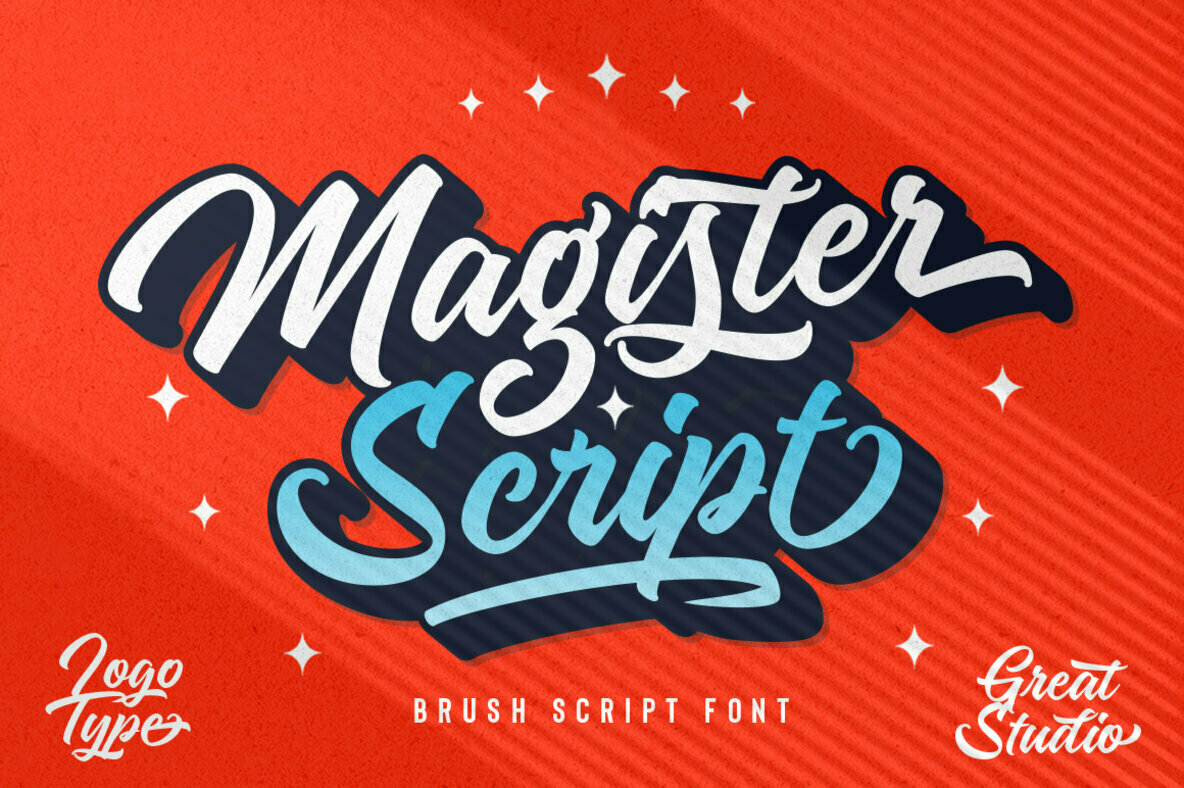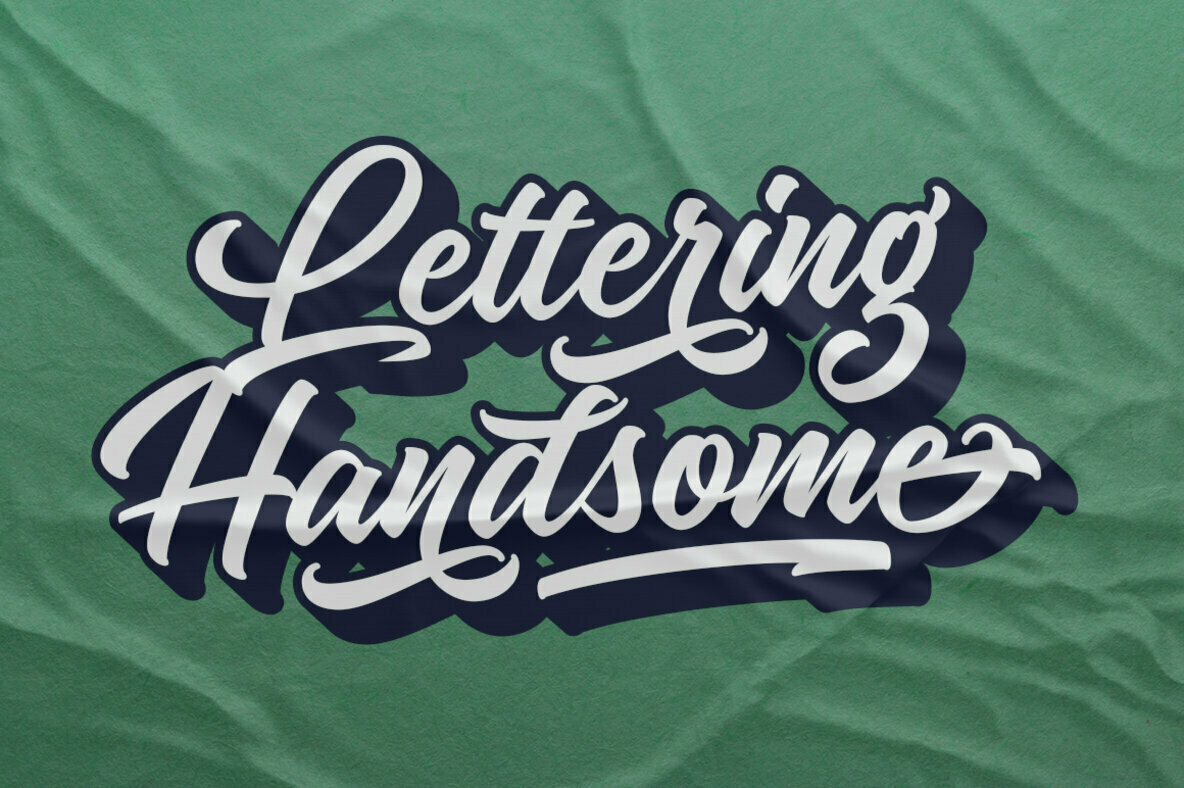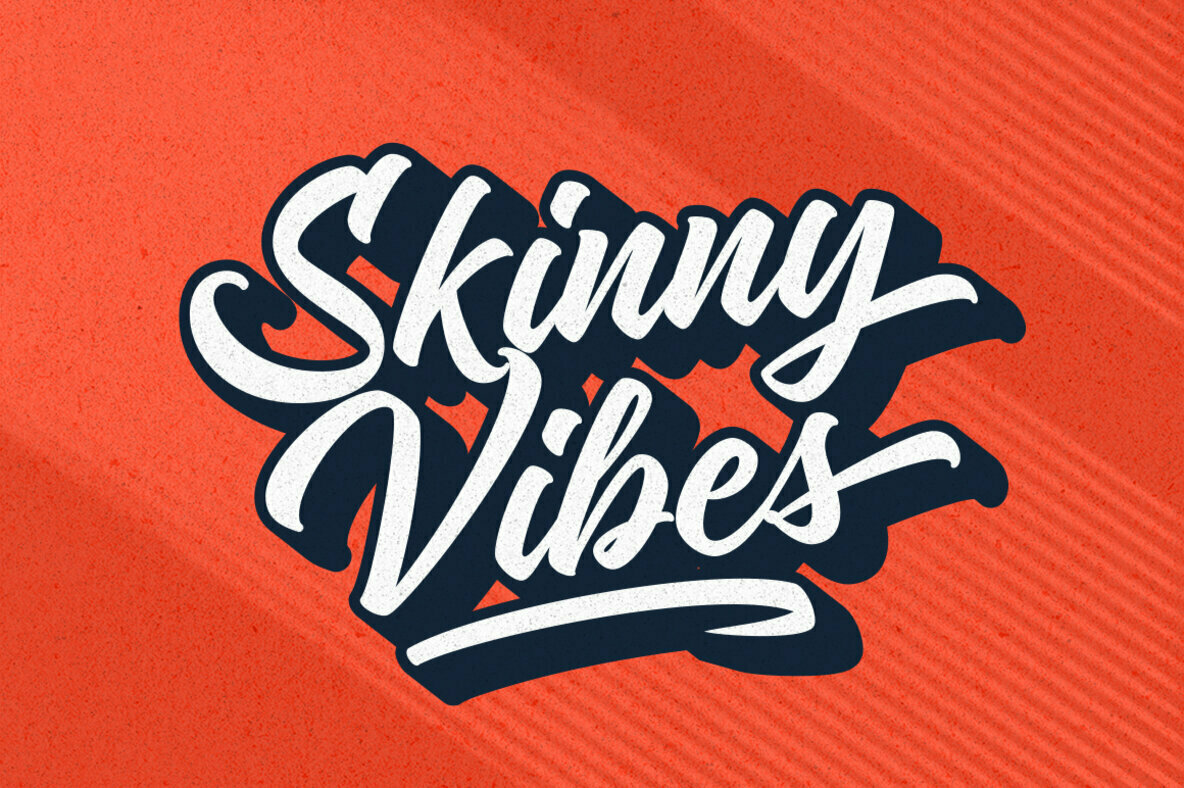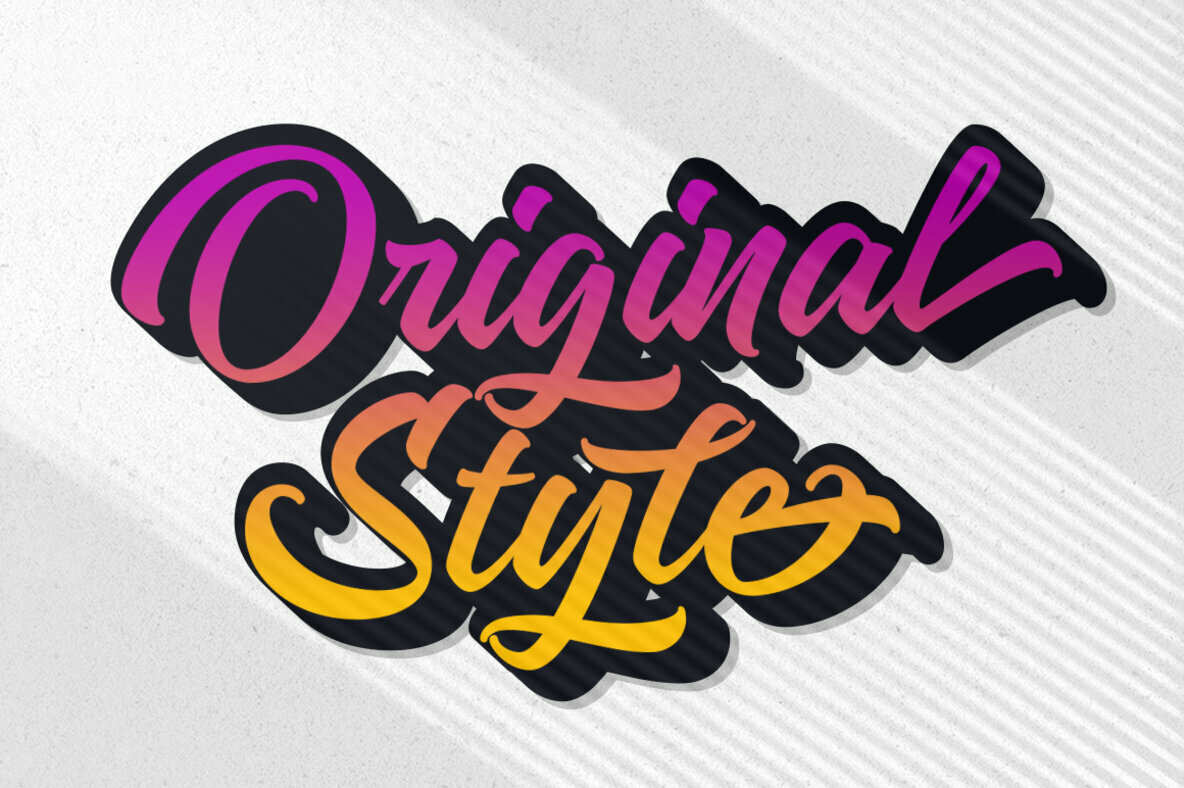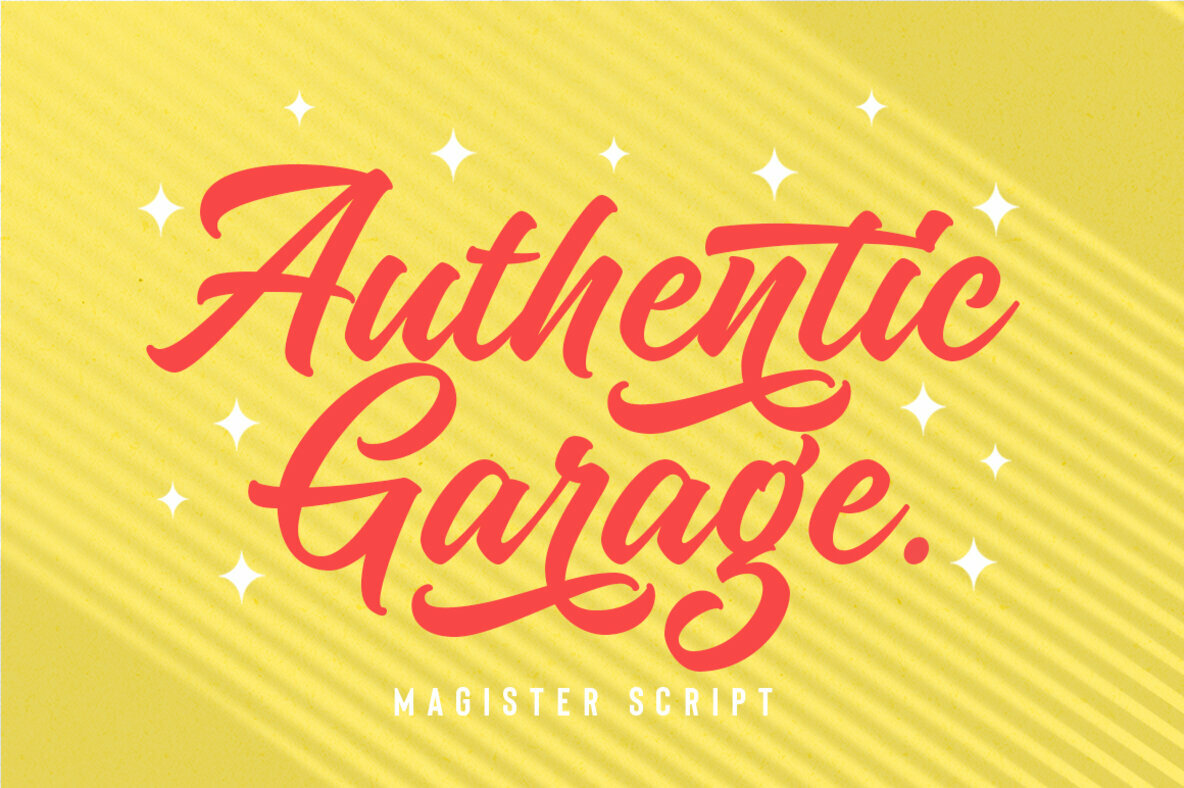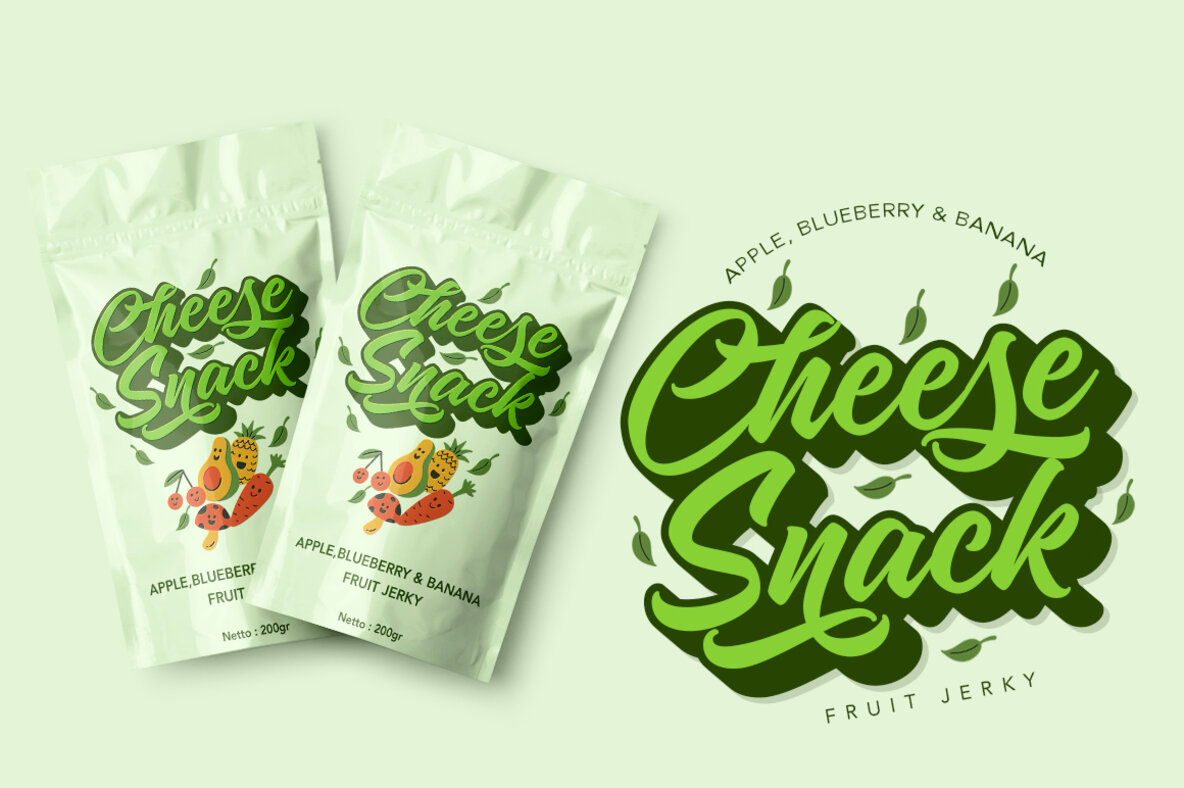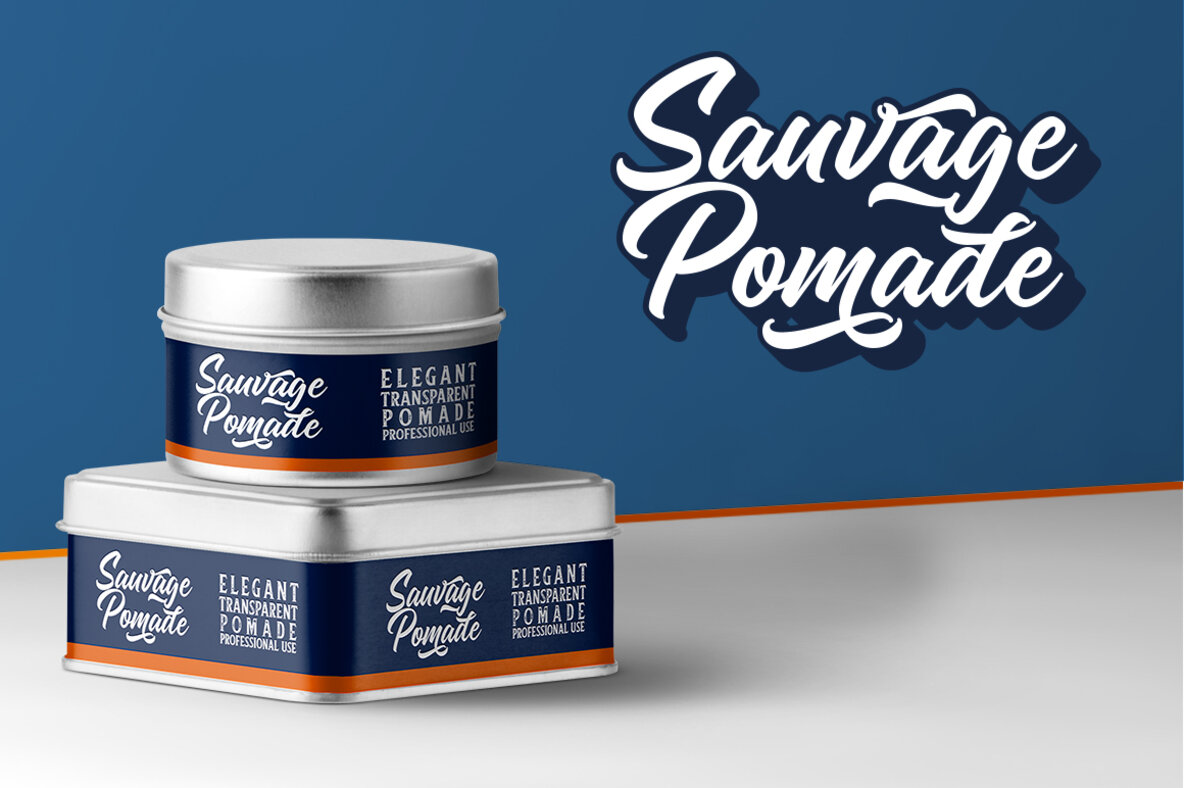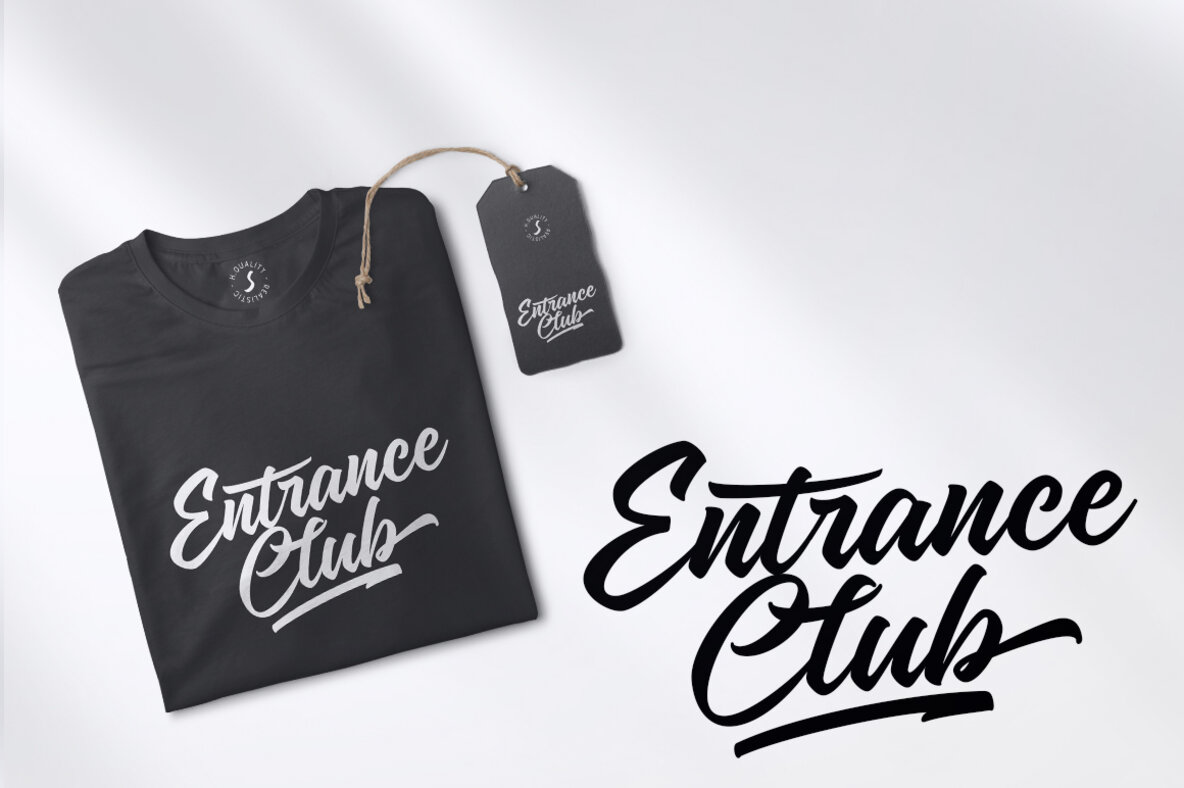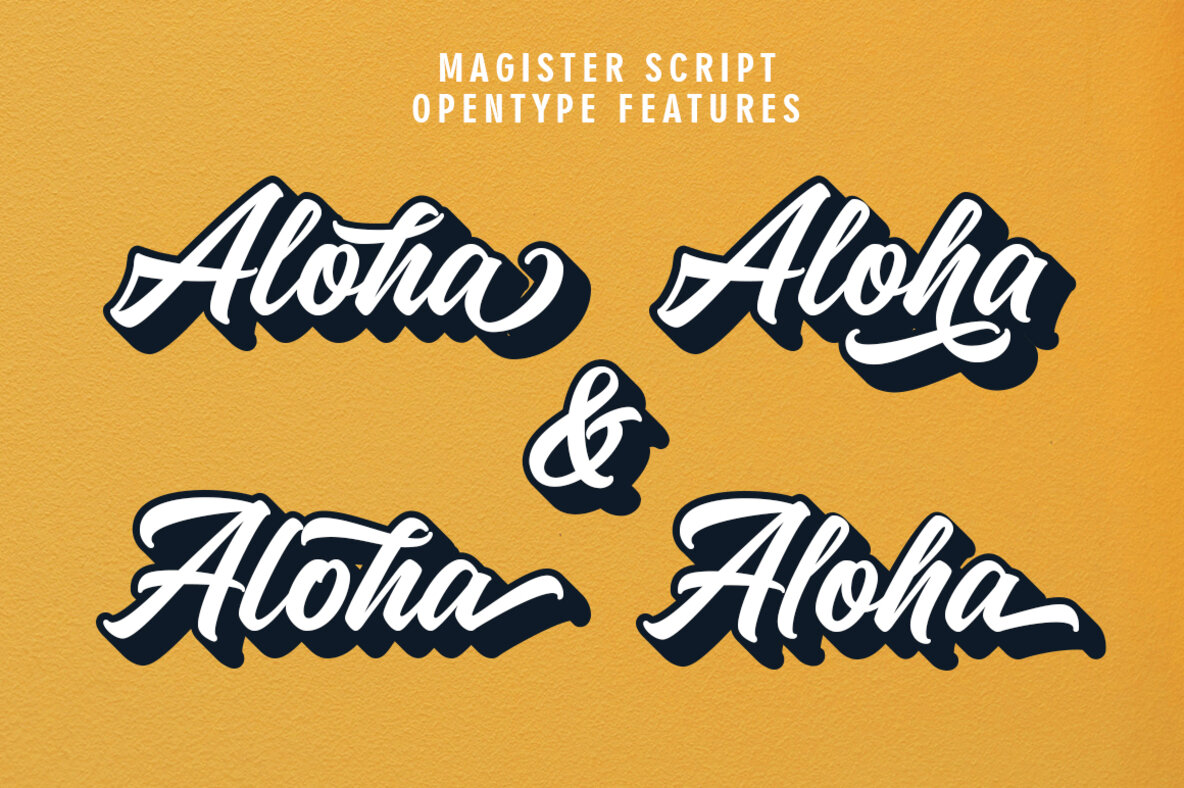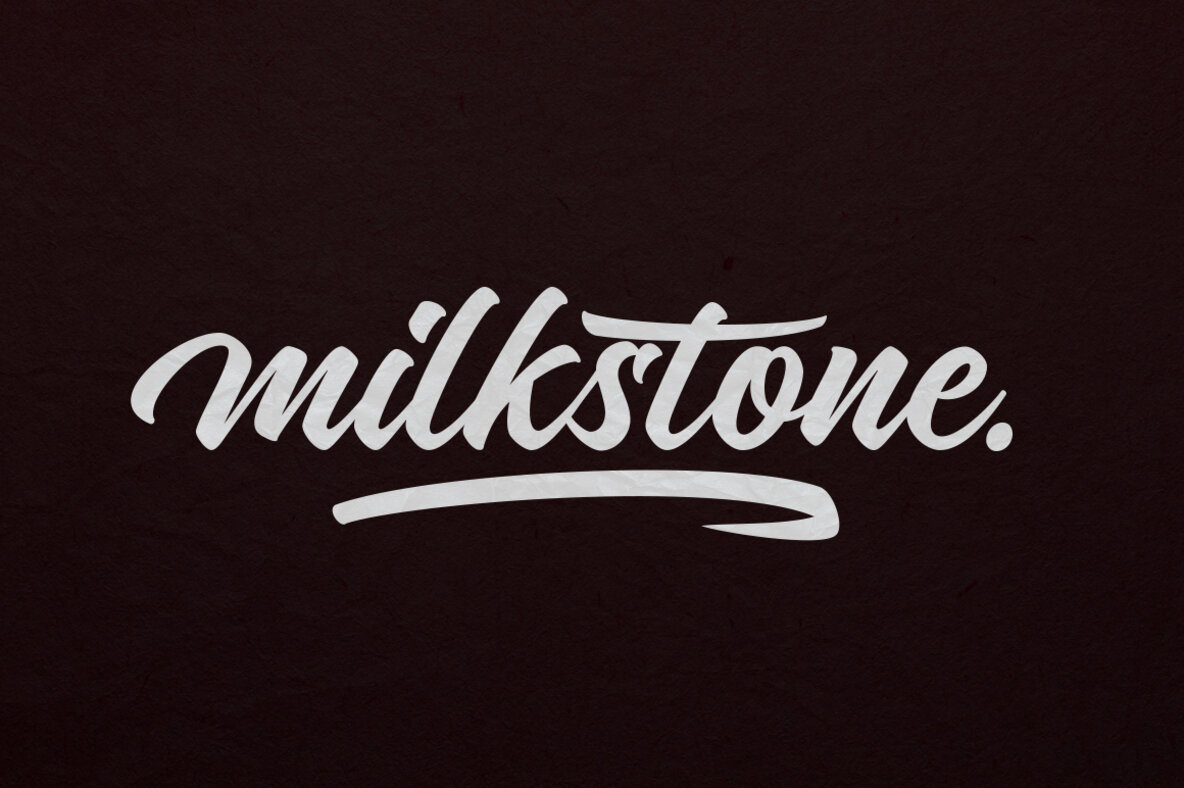
Magister Script Font
Magister Script is a brush script with original, clean and neat handwriting style, with a touch of personality on each curve. This master script is available in two styles. Magister Script One and Magister Script Two, accompanied by Extrudes to simplify your design.
All versions Magister Script have luxurious and elegant alternative letter characters, both for the final connection letters and ascender and descender letters.
This typeface works very well for Logo Design, clothing, handwritten quotes, product packaging, headers, posters, merchandise, social media & greeting cards and all your artwork.